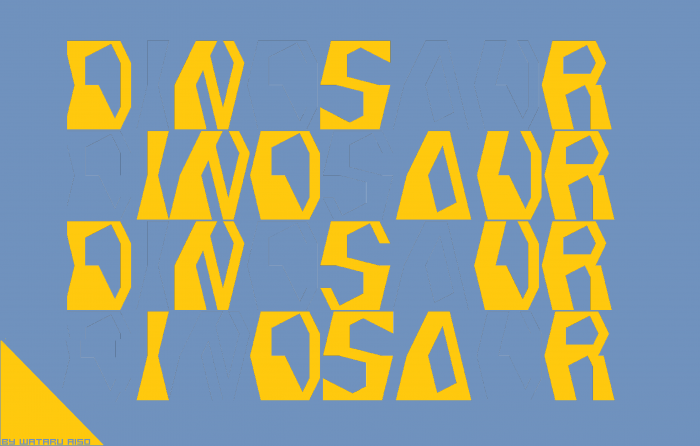
I like this a lot, reminding me of those vintage horror/sci-fi comic books.
Very nice. How about variations in the lower case letter slots – to allow for more irregularity when typing?
Thank you for your advice. I couldn’t decide which is better those letters. That’s why I put on both letters. I hope you’ll understand:)